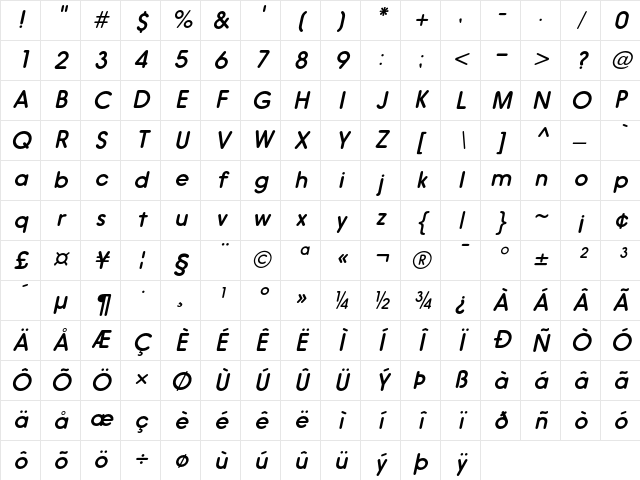
Complete Hiruko Pro Book Oblique glyph index. Displaying only characters natively supported by Hiruko Pro Book Oblique font.
Hiruko Pro is a composed and adaptable typeface that performs quietly and consistently across a wide range of design contexts. The slanted form adds forward momentum and visual energy.
Pro Tip: Use Hiruko Pro for emphasis, pull quotes, and subheadings where its slanted energy can add rhythm to the layout.